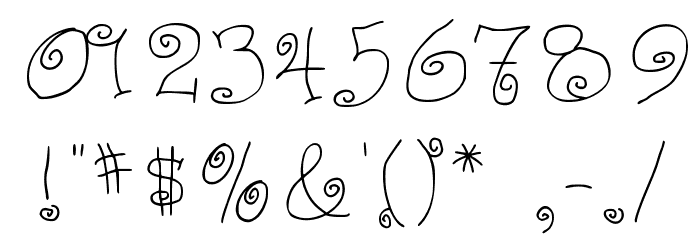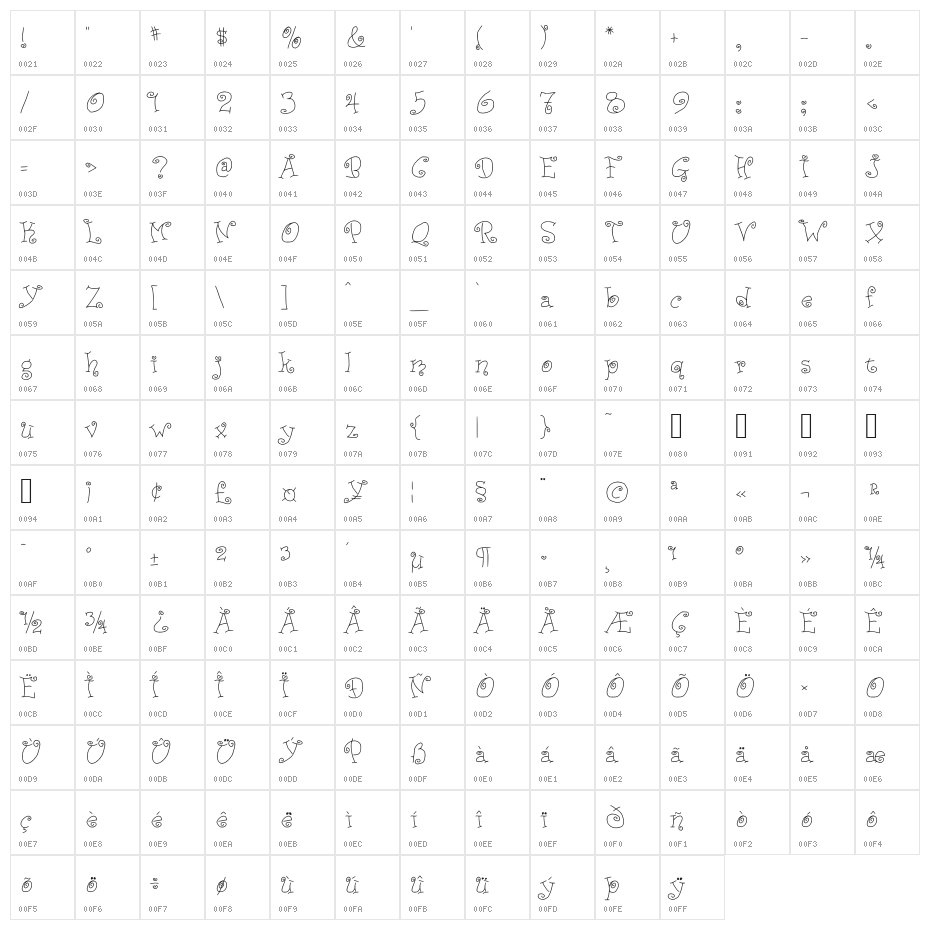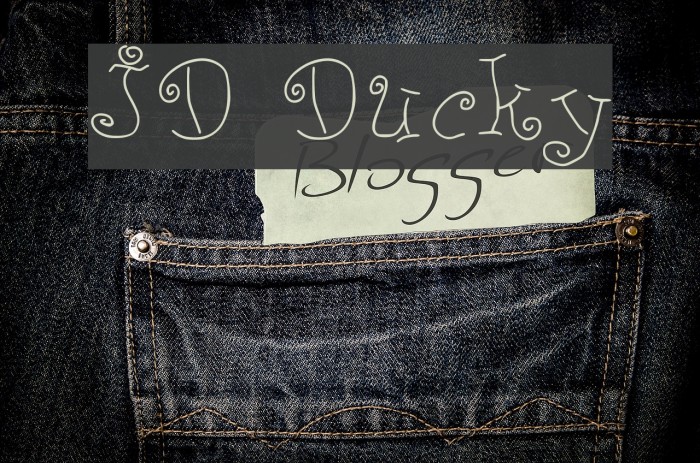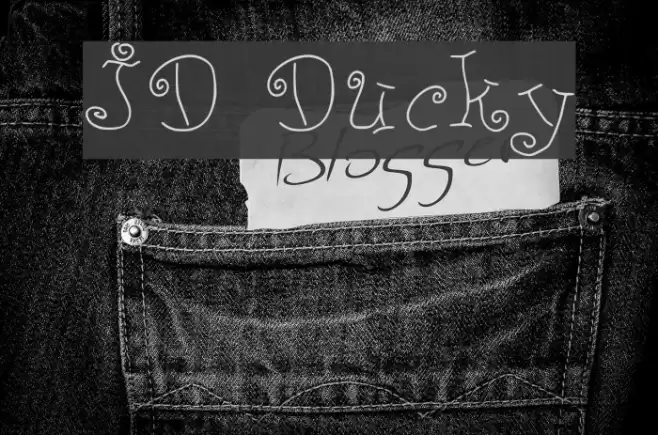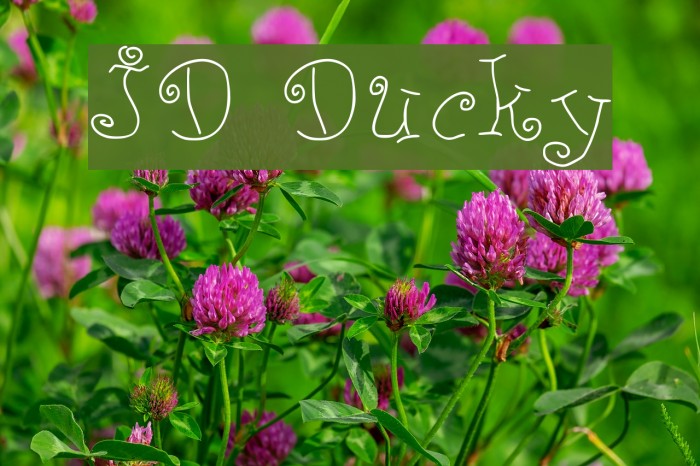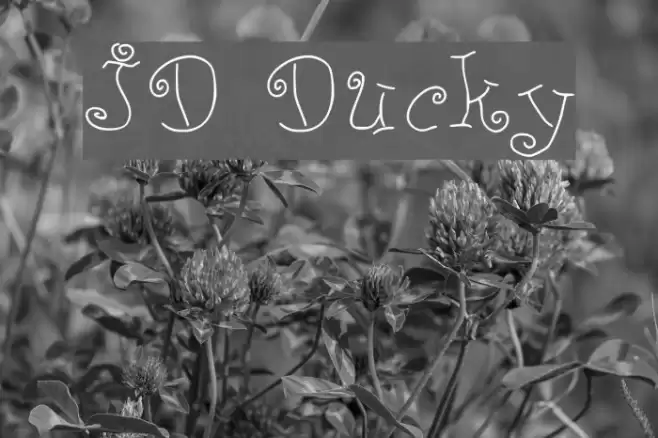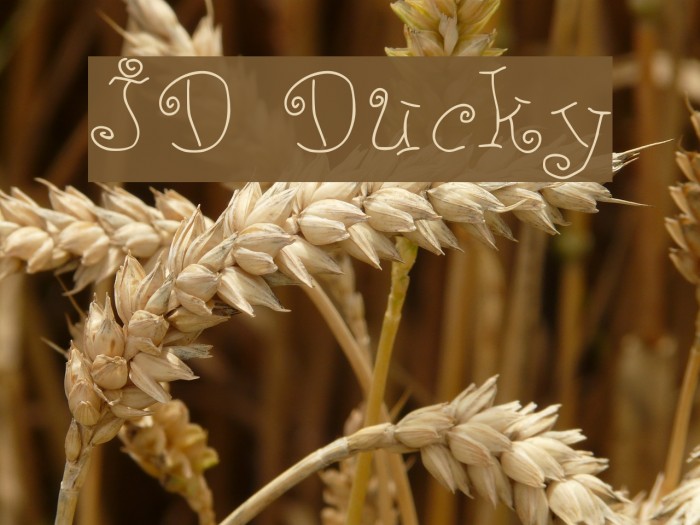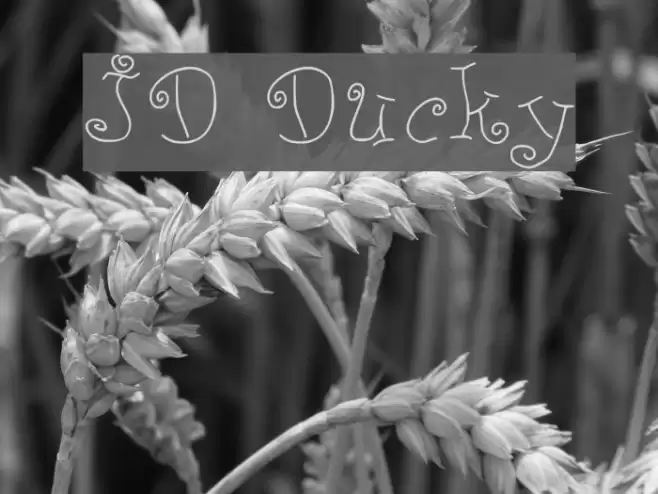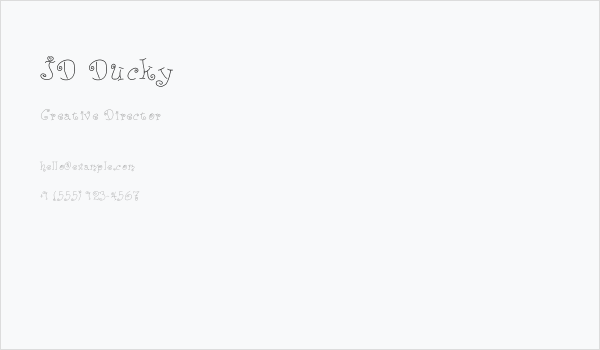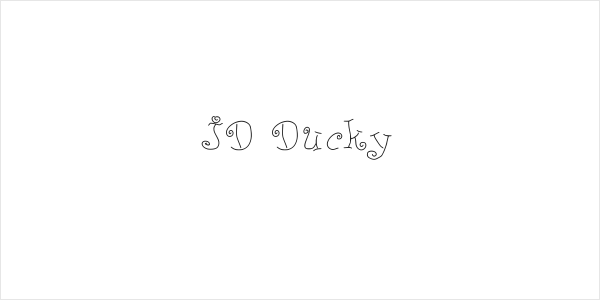
JD Ducky Font
JD Ducky Description
This whimsical and playful font features a unique, curly design that adds a sense of fun and creativity to any project. Each character is adorned with charming swirls and loops, giving it a hand-drawn, artistic feel. The uppercase and lowercase letters maintain a consistent style, with the uppercase being slightly more pronounced. Numbers and special characters are equally decorative, ensuring a cohesive look across all text elements. This font is perfect for projects that aim to convey a lighthearted and imaginative tone.
| Overall Style | Playful, Artistic |
| Use Case | Headlines, Logos, Decorative text |
| Proposed Projects | Ideal for children's books, greeting cards, playful branding, and creative invitations. |